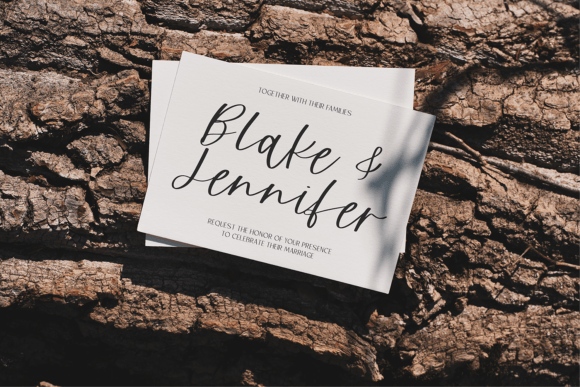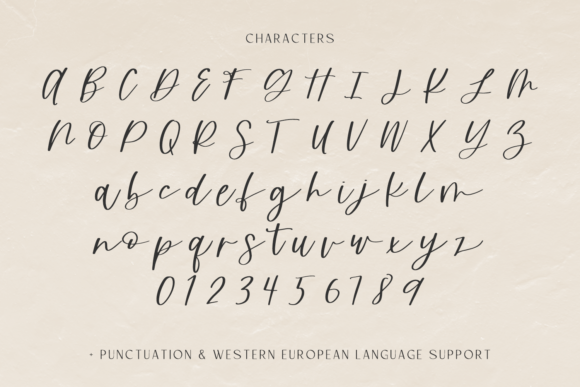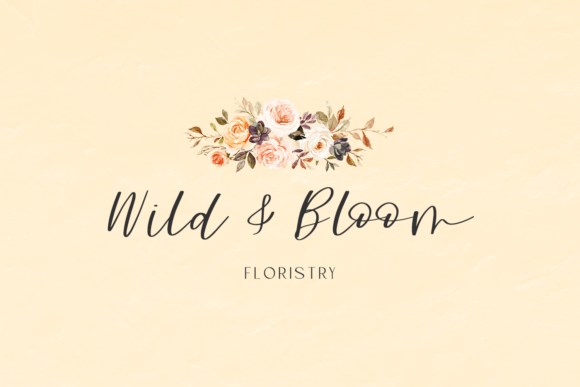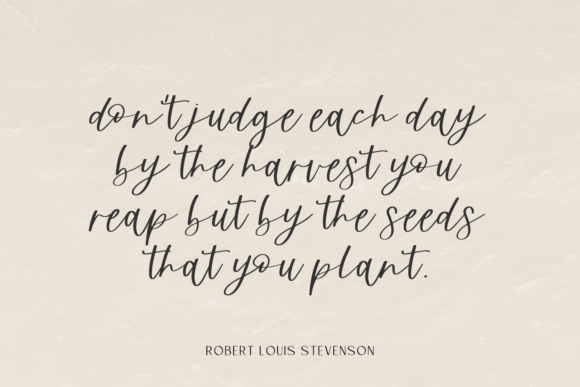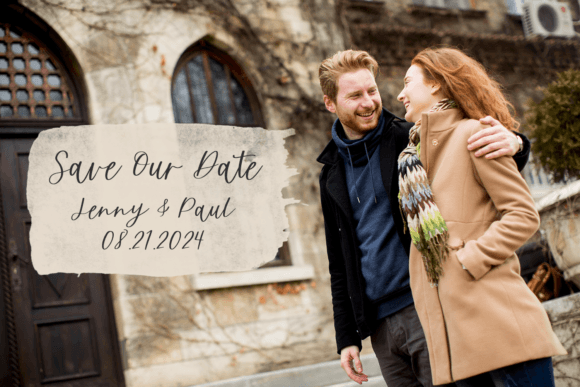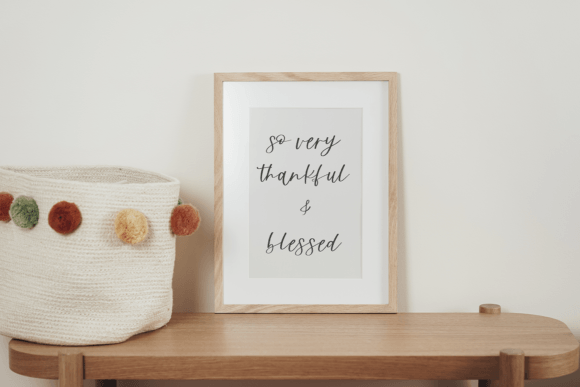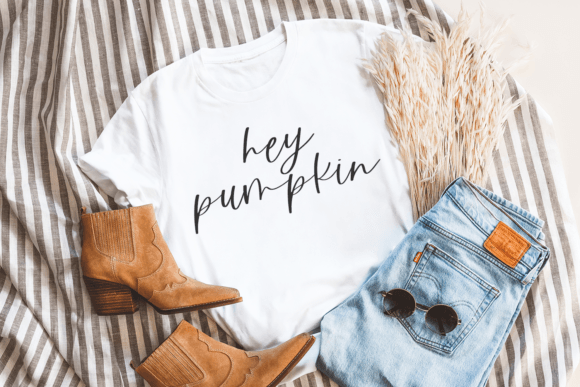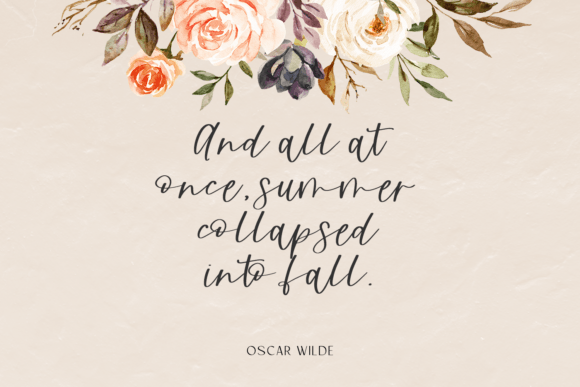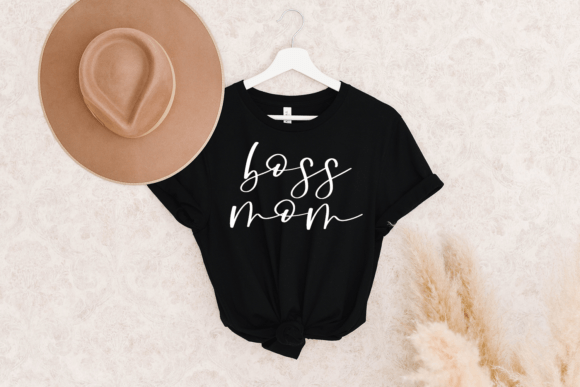
Harvester Font
Harvester Font Download – Modern Stylish Script Typeface
The Harvester Font download is a modern and stylish script typeface that brings elegance and creativity to your projects. With its flowing strokes and refined structure, this font is ideal for both personal and professional designs. Whether you’re working on wedding invitations, business cards, or branding, Harvester ensures your work stands out with sophistication.
A Modern and Stylish Script Style
The Harvester Font download combines contemporary flair with classic handwritten charm. Its elegant curves and balanced letterforms create a polished look that feels fresh while still capturing the warmth of traditional script fonts.
Wedding invitations, thank you notes, and greeting cards shine with the Harvester Font download. Its stylish flow adds romance and refinement, ensuring your stationery feels unique and memorable.
Great for Logos and Branding
The Harvester Font download is an excellent choice for logos, product packaging, and promotional materials. Its handwritten strokes convey creativity and elegance, making it especially fitting for boutique and lifestyle brands.
Versatile for Business Cards and Quotes
Business cards, inspirational quotes, and creative posters benefit from the Harvester Font download. Its stylish handwritten look makes your message clear, engaging, and aesthetically pleasing across all formats.
Readability with Creative Charm
Some script fonts lean heavily on decoration, but the Harvester Font download maintains excellent readability. Its balanced strokes and graceful rhythm ensure your designs stay legible while carrying personality.
Why Choose Harvester Font?
Among script typefaces, the HarvesterFont download stands out with its modern elegance and versatile usability. It’s polished enough for formal designs yet approachable enough for casual creative projects.
Add Elegance to Your Creative Projects
Typography sets the mood of your designs, and the HarvesterFont download ensures your projects radiate sophistication, style, and creativity. Whether for logos, invitations, or business cards, this font helps your work leave a lasting impression.